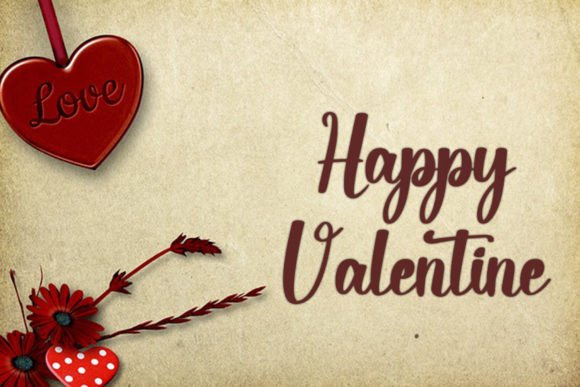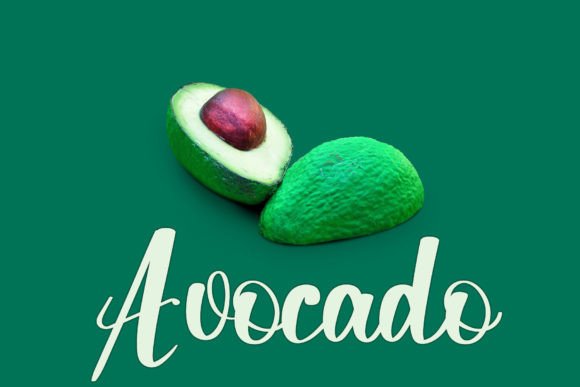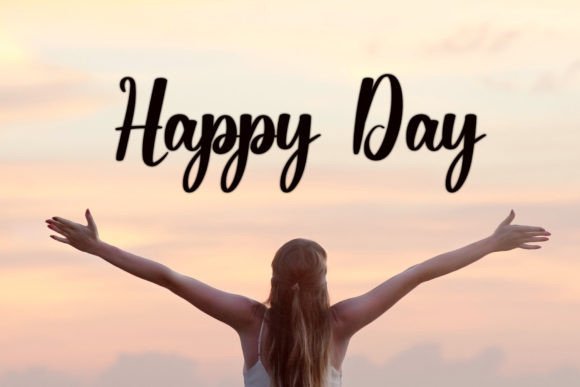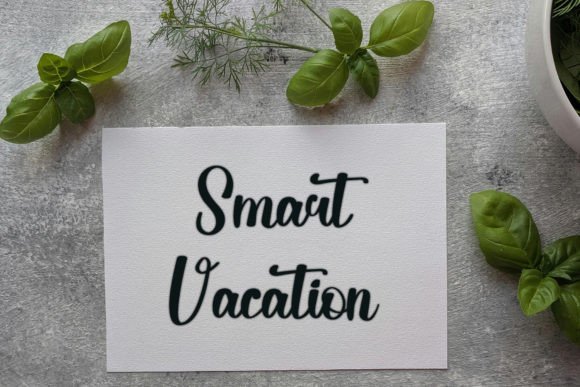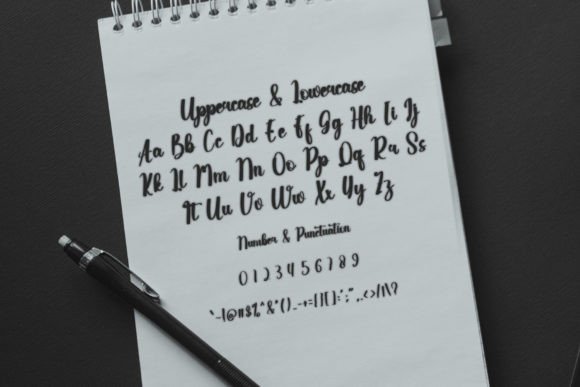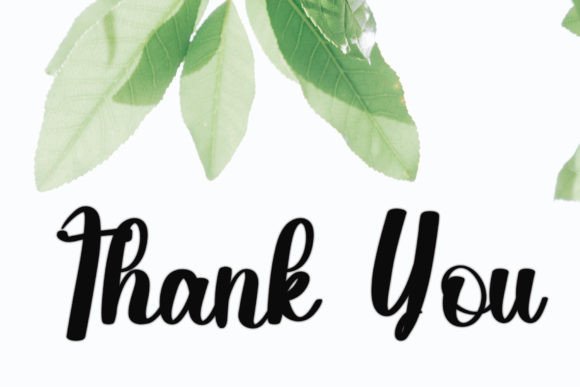
Introducing Hello Bulky Font: Elevate Your Designs with Elegance
Hello Bulky Font is a stunning handwritten font that has been making waves in the design community. Its unique blend of elegance and playfulness has captured the hearts of designers and crafters alike. In this article, we’ll dive into the world of Hello Bulky Font, exploring its features, benefits, and uses, as well as provide tips on how to incorporate it into your designs.
A Beautifully Crafted Font
Hello Bulky is a neat and beautiful handwritten font described by an elegant touch, perfect for your favorite projects. Its incredibly distinct and timeless style makes it an excellent choice for designers looking to add a touch of sophistication to their work. The font’s elegant curves and lines create a sense of movement and fluidity, making it perfect for a wide range of design applications.
What Makes Hello Bulky Font So Special?
So, what sets Hello Bulky Font apart from other fonts? Here are a few key features that make it a standout:
• Elegant Touch: Hello Bulky Font boasts an elegant touch that adds a level of sophistication to any design.
• Handwritten Style: The font’s handwritten style gives it a personal and unique feel that’s perfect for creating bespoke designs.
• Distinct and Timeless: Hello Bulky Font’s incredibly distinct and timeless style ensures that your designs will stand the test of time.
Hello Bulky Font is versatile and can be used for a wide range of projects, including:
• Branding and Logo Design: The font’s elegant style makes it perfect for creating sophisticated brand identities and logos.
• Wedding and Event Design: Hello Bulky Font’s romantic and whimsical feel makes it ideal for wedding invitations, event branding, and more.
• Packaging and Product Design: The font’s unique style adds a touch of personality to packaging and product design, making it perfect for crafters and small business owners.
Hello Bulky Font is a beautiful and elegant handwritten font that’s perfect for designers and crafters looking to elevate their designs. Its unique style, versatility, and timeless appeal make it an excellent choice for a wide range of projects. Whether you’re creating branding and logos, wedding and event designs, or packaging and product designs, Hello Bulky Font is sure to impress.
So, fall in love with Hello Bulky Font’s incredibly distinct and timeless style, and use it to create spectacular designs that will leave a lasting impression!